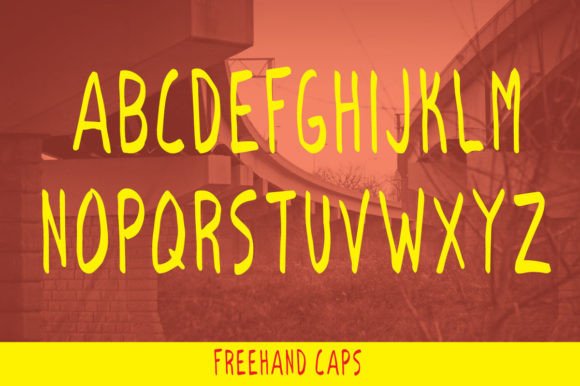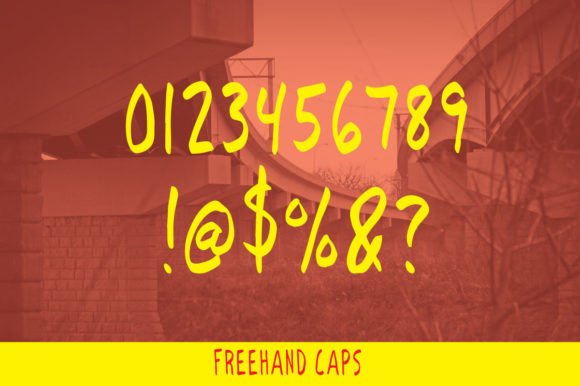
Introduction to Freehand Caps Font
Freehand Caps is an all-caps display font featuring the perfect amount of trendiness.
Whether youโre using it for crafting, digital designing, presentations, or greeting card making, itโs perfect This font is PUA encoded which means you can access all of the amazing glyphs and ligatures with ease.
Key Features of Freehand Caps Font
Freehand Caps Font offers exceptional quality and versatility, making it a valuable addition to your design toolkit. Whether you’re creating for personal projects or commercial use, Freehand Caps Font delivers professional results.